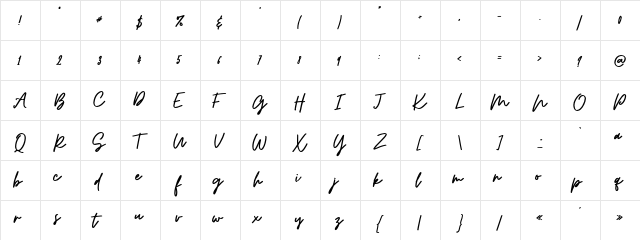
Osulent Signature Regular
Design Context for Osulent Signature Typeface
Osulent Signature is a composed and adaptable typeface that performs quietly and consistently across a wide range of design contexts.
Pro Tip: Use Osulent Signature in both headline and body roles to test its range before committing to a single application.